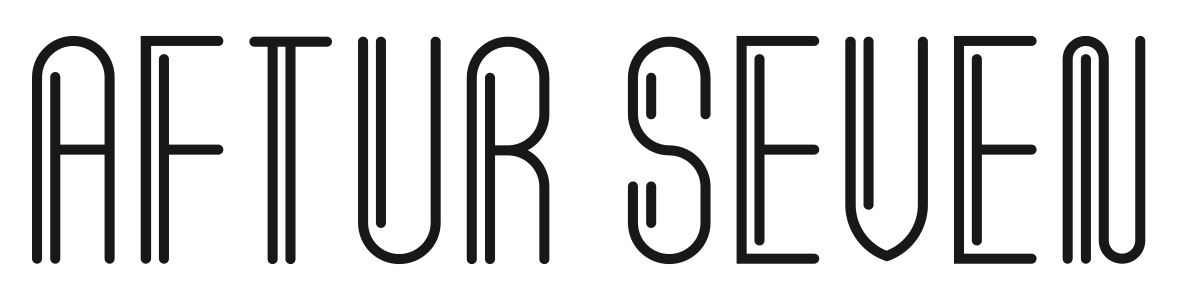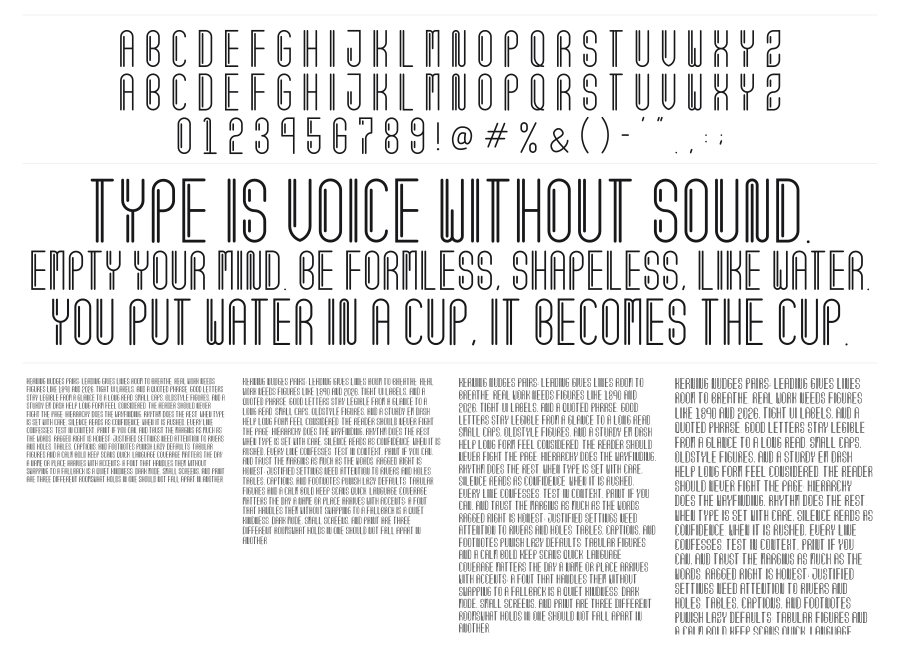
Aftur Seven
by Aqamulhaq Abdurrazaq
Aftur Seven is a condensed inline display font built around a precise double-stroke construction that turns every stem and curve into a pair of parallel hairlines. The effect is unmistakably Art Deco, evoking the glamour of 1920s fashion plates and neon marquees. It carries real decorative weight at large sizes while staying light and open.